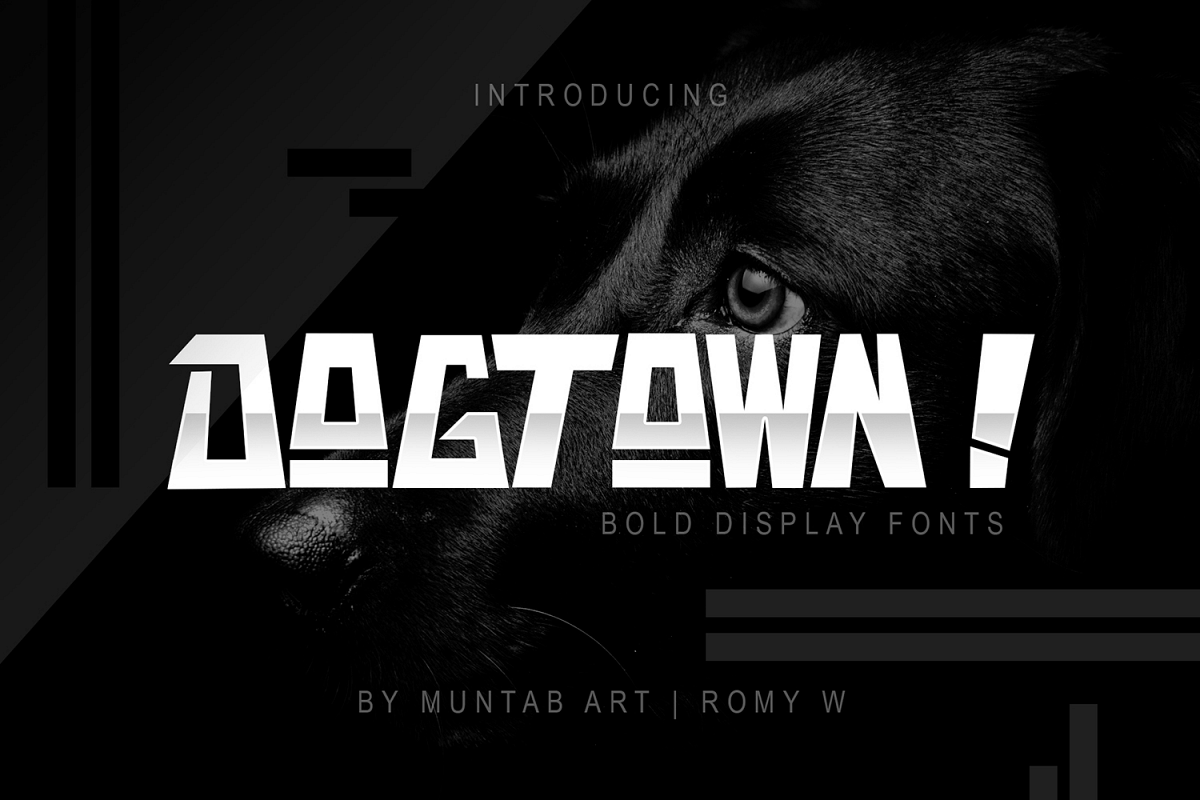
DOGTOWN ! Font | Ungeometric
DOGTOWN-Bold
DOGTOWN font includes uppercase letters, numerals, a large range of punctuation. UnGeometric font with BOLD style. Created for poster, web design, branding, illustrations, badges and some other works.